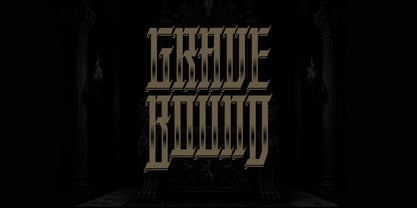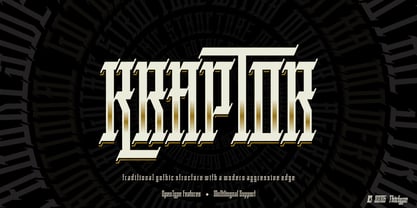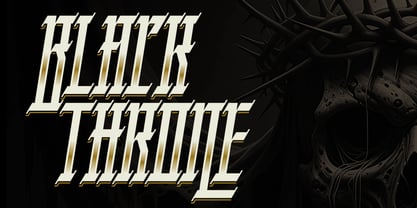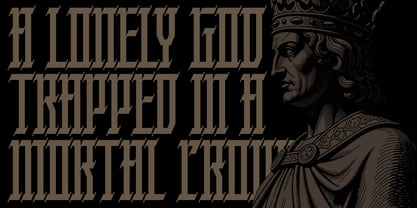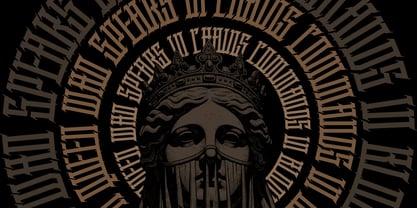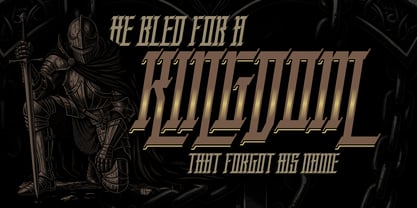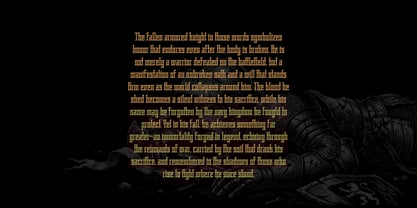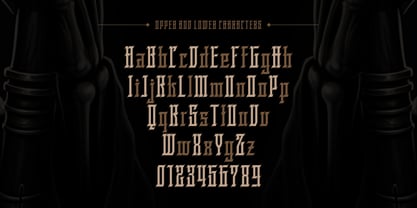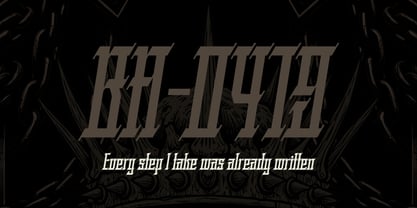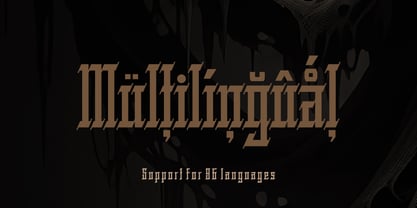
Kraptor
The Kraptor Font Family was designed by Cucu Supriyadi and published by thirtype. Kraptor contains 8 styles and family package options. More about this family
Kraptor is a bold blackletter display typeface that fuses traditional gothic structure with a modern aggressive edge.Inspired by medieval calligraphy, industrial metal aesthetics, and contemporary street typography, it delivers a striking balance between heritage and rebellion.At its core. Kraptor embraces the essence of blackletter—sharp vertical strokes, rigid geometry, and ornamental terminalswhile introducing a distinctive inline engraving effect. This inner detailing creates depth and dimension, evoking the feel of carved metal or chiseled stone, making every letter appear powerful, alive, and premium.The exaggerated crossbars, extended serifs, and angular cuts are carefully crafted to command attention. Its bold and assertive structure makes Kraptor ideal for designs that aim to feel dominant, fearless, and luxurious. Versatility & Usage. It is perfectly suited for: Album covers (metal, rock, hip-hop, underground)Streetwear and fashion brandingBold logo design and identity systemsPosters, headlines, and editorial layoutsGaming titles and esports brandingTattoo-inspired graphicsDark luxury and premium brandingWhether used for rebellion or refinement, Features Multiple Styles IncludedBasic Clean and solid version, Inline Engraved and Shadow. Stylistic alternates and swash characters to create more expressive and customized typography. Multilingual SupportCovers a wide range of international characters for global usability.Optimized for DisplayDesigned to perform best at large sizes with maximum visual impact.